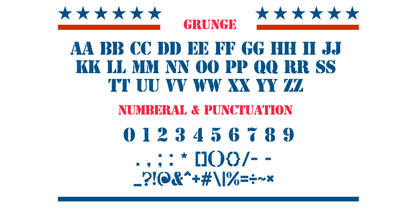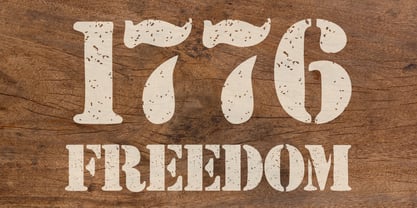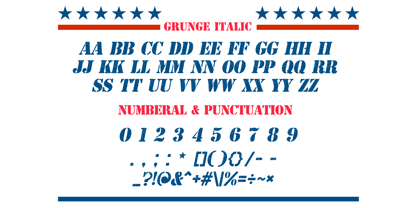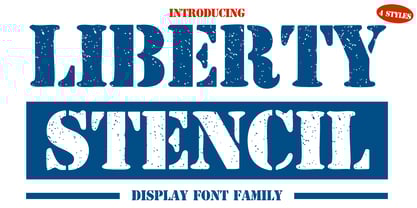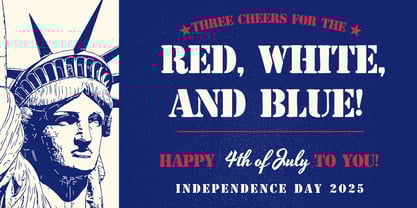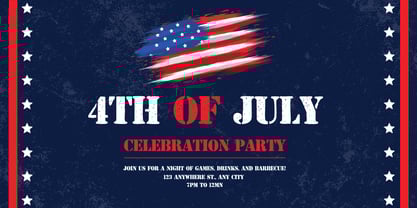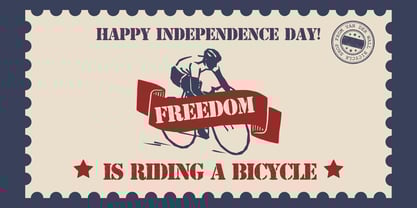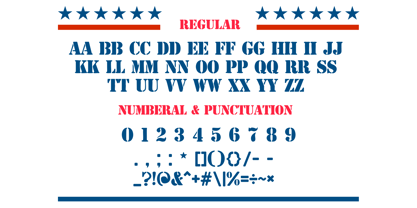
Liberty Stencil
by Brown Cupple Typeface
The Liberty Stencil Font Family was designed by Nattha​ Potchanad​ and published by Brown Cupple Typeface. Liberty Stencil contains 4 styles.
Liberty Stencil is A bold and commanding display typeface inspired by the grit and glory of American military heritage. With sharp, clean cuts and a classic stencil structure, Liberty Stencil evokes the spirit of 1776—freedom, resilience, and patriotic pride. Perfect for headlines, posters, apparel, and any design that calls for strength and character, this typeface marches with confidence and historic gravitas.